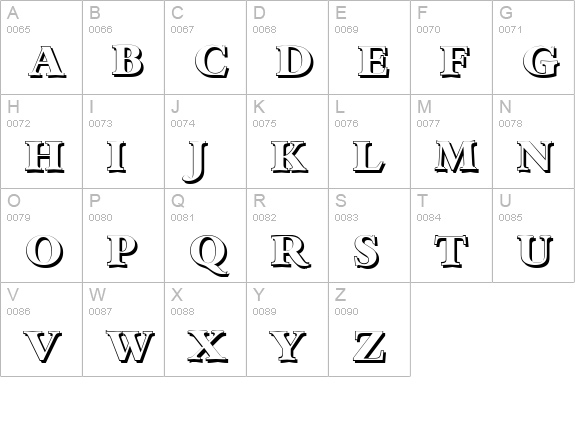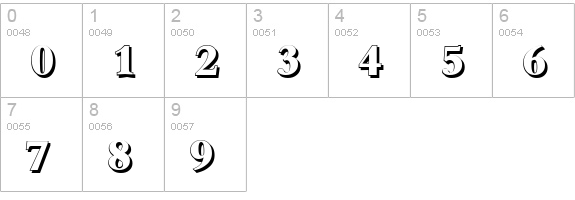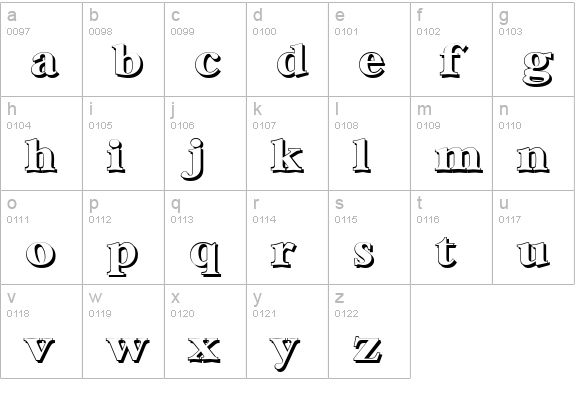
BernsteinShadow-Xbold-Regular is the standard, neutral variant in the BernsteinShadow typeface family \xE2\x80\x94 well suited to general body text, paragraphs, and standard typographic work.
Introducing BernsteinShadow-Xbold-Regular, a striking display font that combines elegance with modernity. This typeface effortlessly captures attention with its bold and dynamic letterforms, making it perfect for headlines, posters, and branding projects. The sharp shadows add depth and intrigue to each character, creating a memorable visual impact. The best part? BernsteinShadow-Xbold-Regular is available for free download at FontsMarket.com. Now you can elevate your designs without breaking the bank. Don't miss out on this versatile and eye-catching font that will take your projects to the next level. Download it today and unleash your creativity!